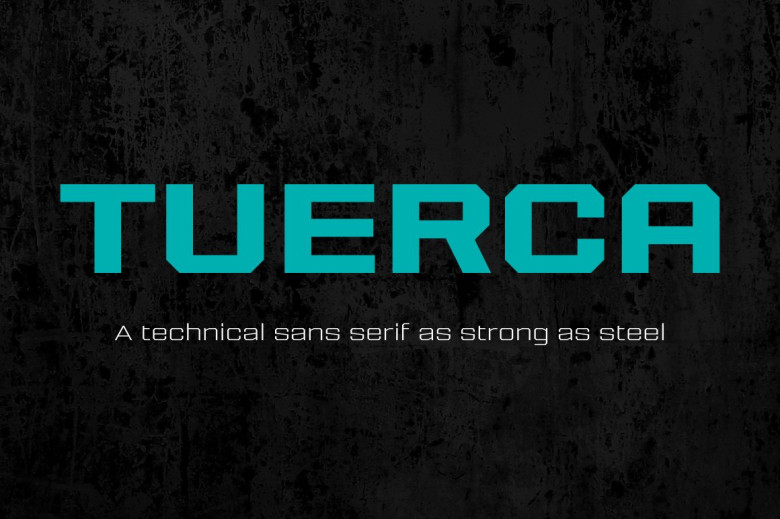
Tuerca Font
Tuerca font family has been designed for Graviton Font Foundry by Pablo Balcells in 2021. It features an extended sans serif typeface with distinct technical appearance; featuring square-shaped shapes angular with square corners. Tuerca can be found across eight styles with small caps and multiple language coverage options available to meet various design needs and can even serve as headline text of any length.
Tuerca Sans Serif Font Family